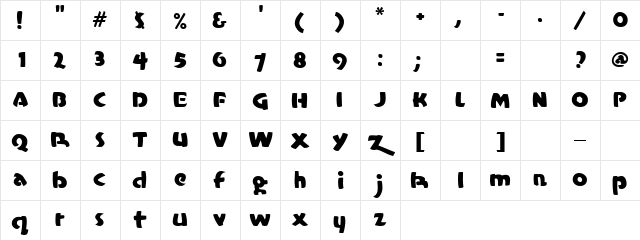
Jackky Trem Regular
Design Context for Jackky Trem Typeface
Jackky Trem is a composed and adaptable typeface that performs quietly and consistently across a wide range of design contexts.